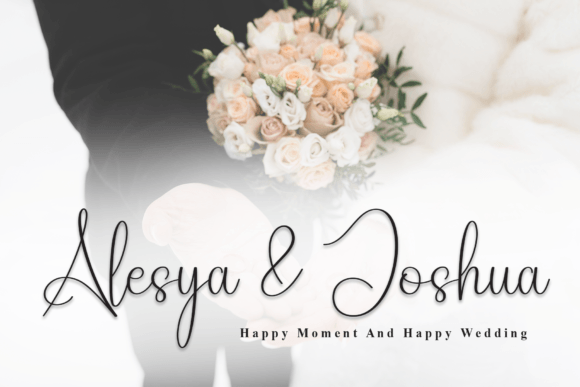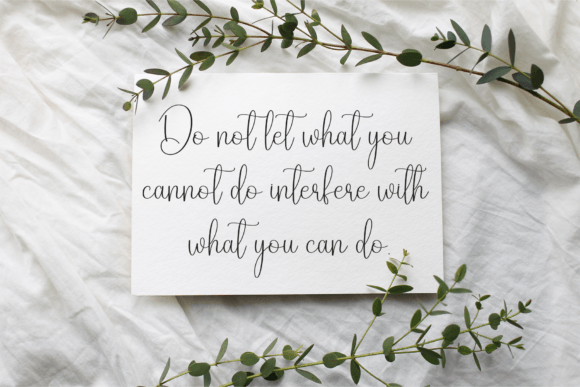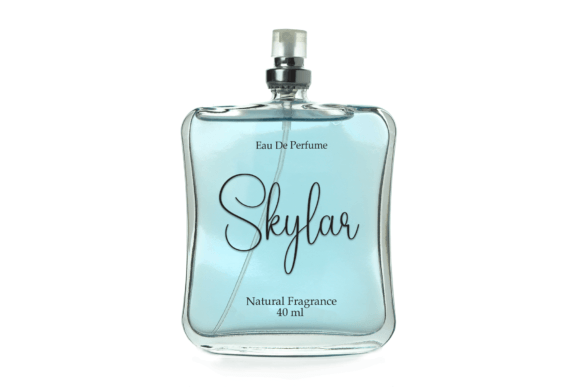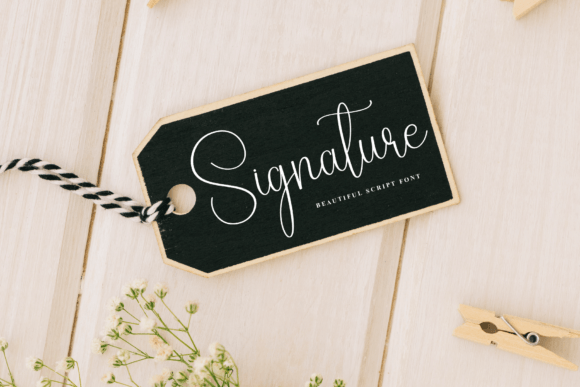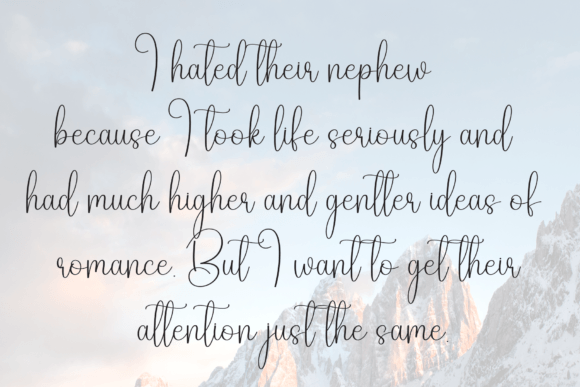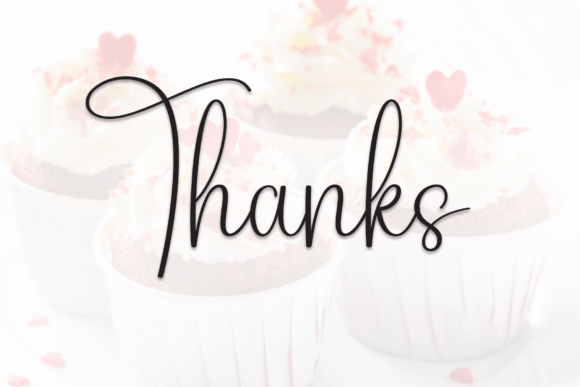
The Sweet Spot: Discovering the Magic of Cupcake Font
I’ll never forget the time I was working on a DIY project, pouring my heart and soul into creating the perfect invitation for a friend’s baby shower. I had the design concept nailed, the colors were on point, and the graphics were looking fabulous. But, as I was about to finalize the text, I hit a roadblock – I just couldn’t find the right font. That’s when I stumbled upon Cupcake, a magical script font that would change the game for me and countless other designers, crafters, and creative hobbyists out there.
A Personal Review: What I Love About Cupcake Font
Cupcake is more than just a font – it’s an experience. With its elegant touch and whimsical flair, it’s the perfect addition to any creative project. Here’s what I love about it:
- ✨ Elegant and Refined: Cupcake boasts a sophisticated, cursive style that’s perfect for formal events, branding, and high-end designs.
- ✅ Versatile: Whether you’re designing for Instagram, crafting DIY projects, or creating professional materials, Cupcake adapts seamlessly to any format.
- 🎨 Highly Customizable: With OpenType features, glyphs, and stylistic alternates, you can experiment with various styles to match your unique vision.
While Cupcake is an amazing font, there are a few minor things to keep in mind:
- 🤔 Legibility at Small Sizes: Like many script fonts, Cupcake can get a bit tricky to read at very small sizes. Make sure to test it at different scales to ensure it works for your project.
- ⚠️ Glyph Compatibility: Some glyphs or special characters might not work perfectly across all platforms or software. Always double-check your design for any inconsistencies.
Exploring Alternatives: Similar Fonts to Cupcake
The Story Behind Cupcake: A Glimpse into Its Design Inspiration
Cupcake was crafted with love and a passion for beautiful typography. Its designer aimed to create a font that would bring a touch of magic to any project, blending elegance with playfulness. Inspired by classic calligraphy and modern script fonts, Cupcake is the result of meticulous craftsmanship and attention to detail.
| What makes Cupcake Font unique? | Cupcake’s uniqueness lies in its perfect blend of elegance and whimsy, making it versatile for a wide range of creative projects. |
| Is Cupcake suitable for body text? | While Cupcake is stunning for headings and titles, its script nature might not be ideal for lengthy body text. It’s best used for accentuating key information or adding flair to your designs. |
Cupcake Font is more than just a typeface – it’s a tool to elevate your designs, add a personal touch, and make your creative projects truly special. Whether you’re a seasoned designer, a crafter, or a hobbyist, Cupcake is sure to inspire and bring a touch of magic to your work.